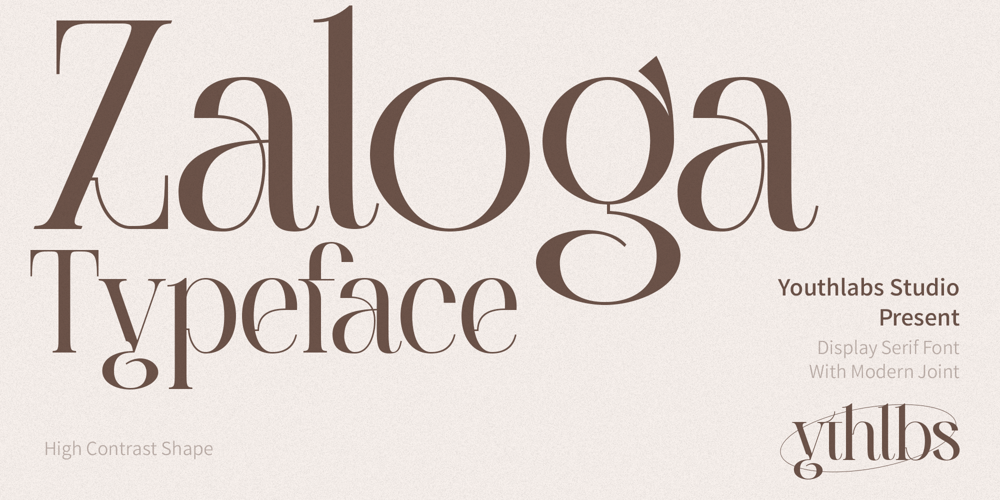
Zaloga
Zaloga font
Zaloga Font Family was designed by Fathi Al Ghazi and published by Youthlabs. Zaloga contains 1 styles and family package options. Introducing ZALOGA Display Serif Font. ZALOGA is a serif font that gives modern touch on your design. It looks so good for fashion brand logo. With different style of shape, ZALOGA will make it easier for you to use various design functions, be it for logos, typography, magazine, fashion, branding, advertising, and more.Need to test words in this font? Just type the box below, and see what it looks likeFor more information on accessing alternative flying machines, you can see this link (http://adobe.ly/1m1fn4Y)Thanks, stay safe and healthy, and have a nice day.